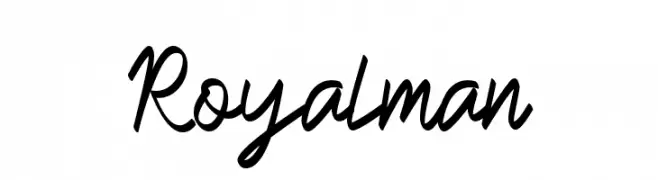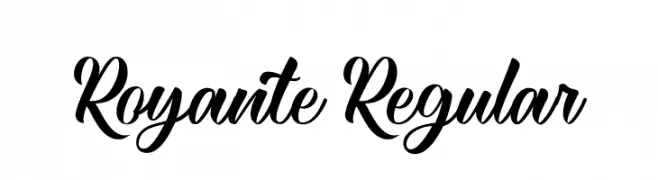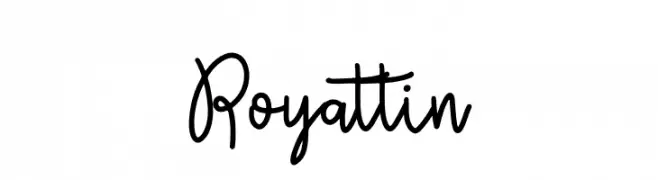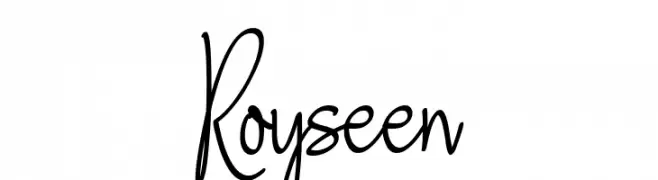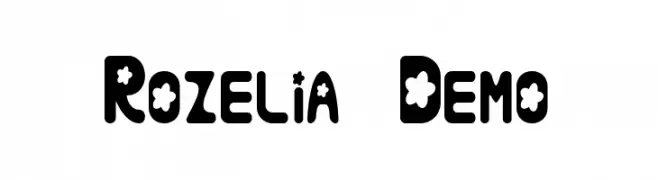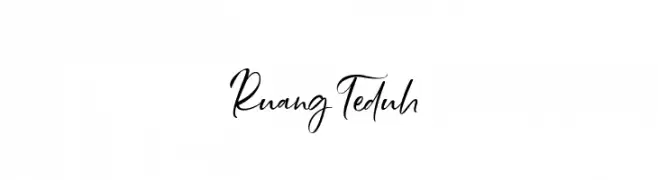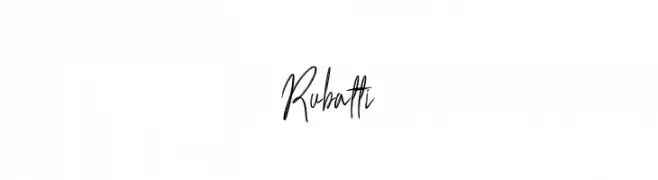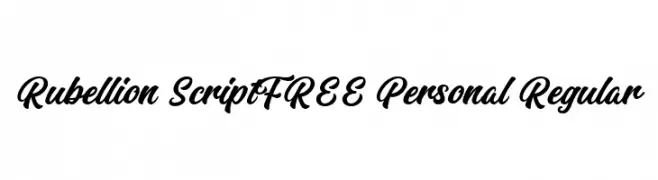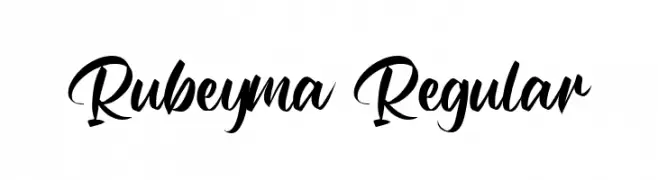
A dynamic, cursive handwritten font with a bold and fluid style.
A bold, elegant script font with flowing, cursive letterforms and high contrast.
A playful and elegant handwritten font with fluid strokes.
A playful, handwritten font with elongated, irregular characters.
A playful, decorative font with floral cutouts and bold, rounded characters.
An elegant, flowing script font with a handwritten appearance.
A dynamic, flowing handwritten font with elegant, slightly irregular strokes.
A playful, bold, and outlined font with a modern and fun style.
A bold, flowing script font with elegant curves and ornate details.
A dynamic script font with fluid, interconnected strokes and a calligraphic style.